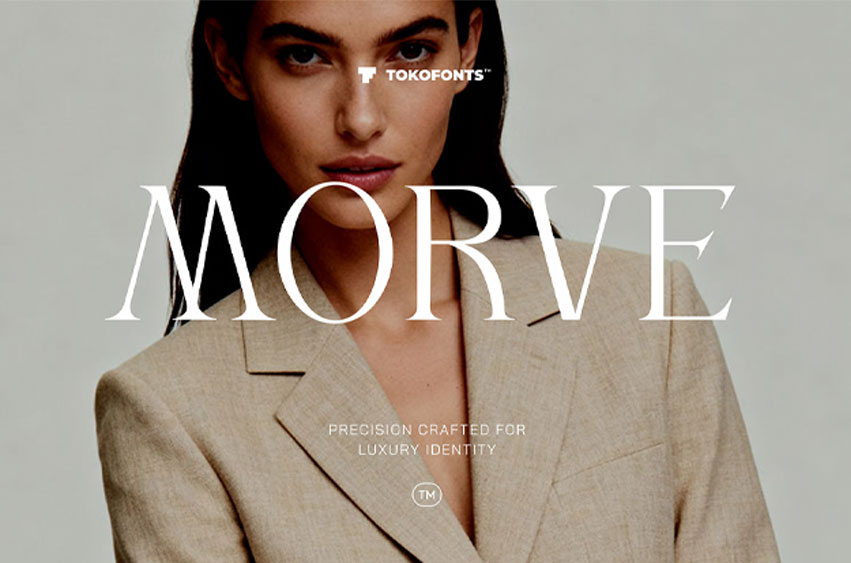
Morve Font
Morve Font is a modern elegant typeface that blends the refinement of fashion aesthetics with a clean, minimal structure. Inspired by the balance between Helvetica precision and Montserrat versatility, it delivers a timeless look that fits seamlessly into corporate and luxury branding. Its carefully crafted letterforms reflect a contemporary identity, making it ideal for logo design, editorial layouts, and high-end visual communication. With subtle influences from Futura, Morve font maintains geometric clarity while preserving a soft, sophisticated tone.
Designed to function across multiple creative needs, Morve font also carries a flexible character that allows it to be used as a display typeface or even adapted for fonts kids projects with a polished edge. Its clean lines and modern elegance ensure readability while maintaining a strong visual presence. Whether used for fashion campaigns, corporate materials, or minimalist branding, Morve font stands out as a versatile solution that merges style and function effortlessly.